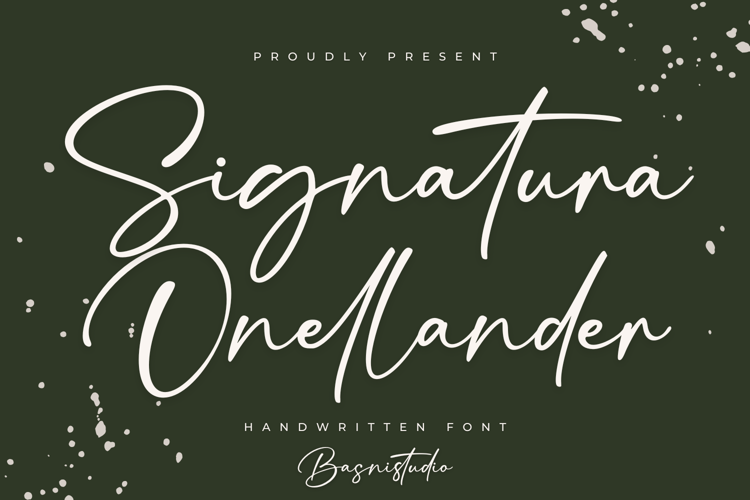
Signatura Onellander Font
INTRODUCING Signatura Onellander a Elegant Script Font
Signatura Onellander a Elegant Script Font that adds a elegant, versatile touch to everything from branding and social media to invitations and packaging.